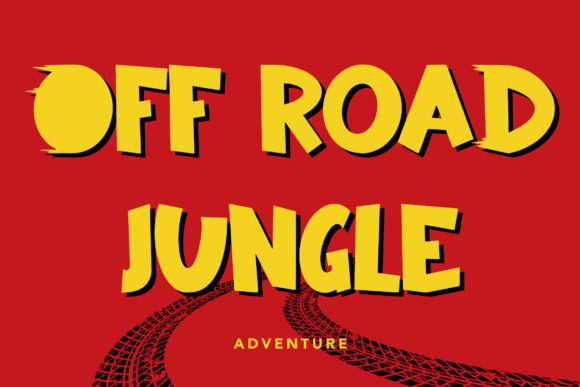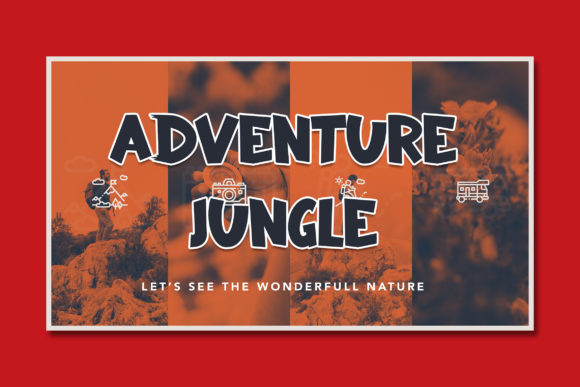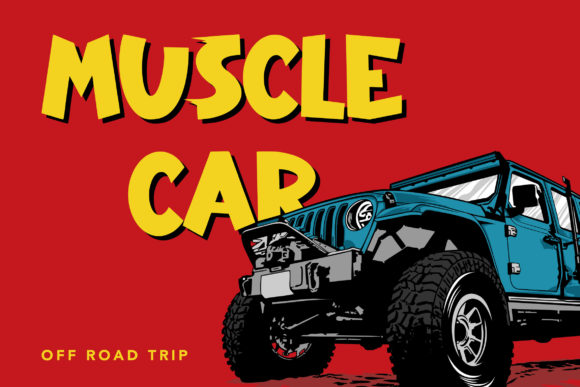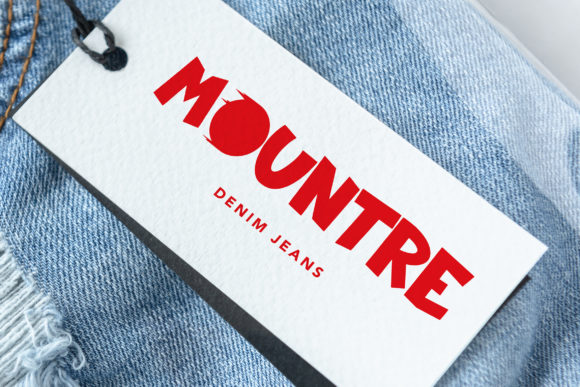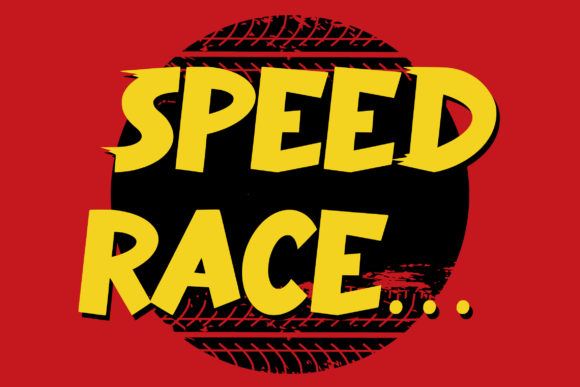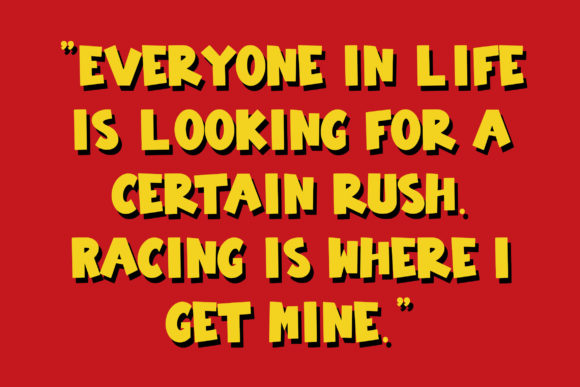
Introduction to Fast Drift Font
Fast Drift is a comic display font featuring distinctive handwritten characters.
This cool typeface is perfect for branding projects, logos, wedding designs, media posts, advertisements, product packaging, product designs, labels, photography, watermarks, invitations, stationery, and any project that needs impressive typography .
Key Features of Fast Drift Font
Why Choose Fast Drift Font?
Fast Drift Font offers exceptional quality and versatility, making it a valuable addition to your design toolkit. Whether you’re creating for personal projects or commercial use, Fast Drift Font delivers professional results.